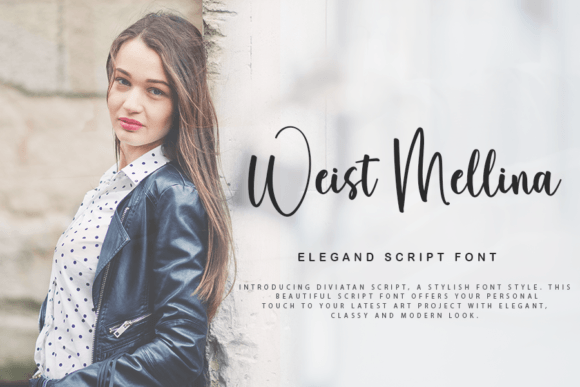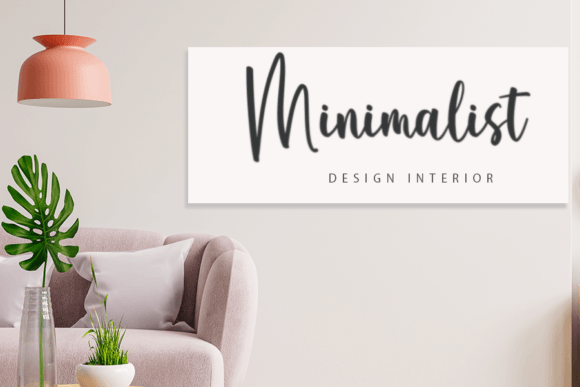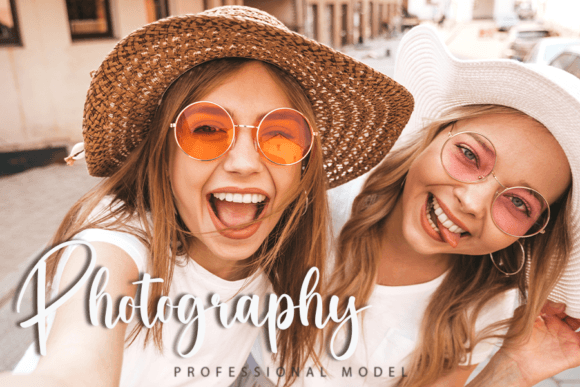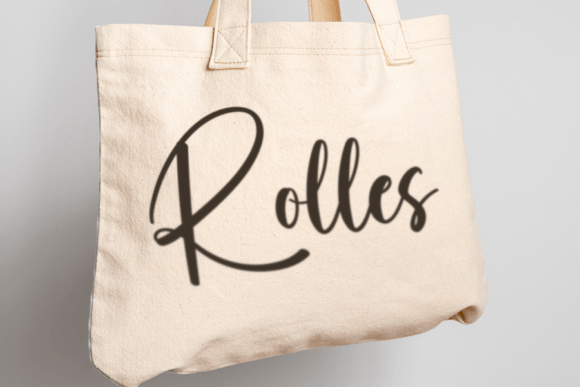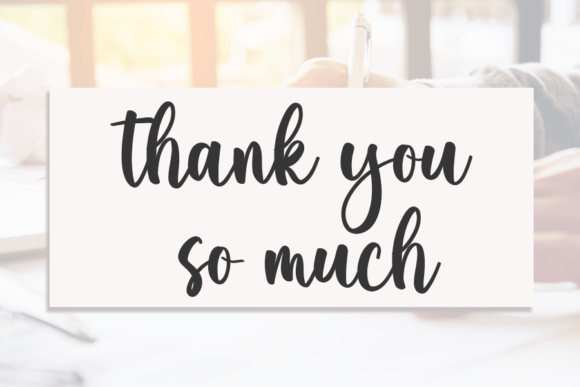
Introducing Anime Font: Elevate Your Designs with Timeless Elegance
Are you a designer or crafter looking for a font that exudes sophistication and style? Look no further than Anime Font, a stunning handwritten font that brings a touch of classic calligraphy to your modern designs. Inspired by the timeless elegance of traditional calligraphy, Anime Font is a beautifully balanced and varied typeface that is sure to elevate the beauty of your projects.
The Inspiration Behind Anime Font
Anime Font draws its inspiration from the world of classic calligraphy, where the art of beautiful handwriting is revered. The font’s creator aimed to capture the essence of this timeless art form and infuse it with a contemporary atmosphere, making it perfect for modern designs. The result is a font that is both elegant and approachable, with a unique character that sets it apart from more mundane typefaces.
Key Features of Anime Font
So, what makes Anime Font so special? Here are just a few of its key features:
• Handwritten with love: Anime Font is a carefully crafted handwritten font, with each letter and character lovingly designed to bring a touch of personality to your designs.
• Contemporary atmosphere: Despite its classic inspiration, Anime Font has a distinctly modern feel that makes it perfect for a wide range of design applications.
• Impeccable form: The font’s creator has paid meticulous attention to detail, ensuring that every letter and character is beautifully formed and balanced.
• Balanced and varied: Anime Font features a range of characters and ligatures, making it easy to create complex designs that are both visually appealing and easy to read.
Uses for Anime Font
So, what can you use Anime Font for? The possibilities are endless! Here are just a few ideas to get you started:
• Branding and logos: Anime Font’s unique character makes it perfect for creating eye-catching logos and brand identities.
• Invitations and events: Add a touch of elegance to your invitations, wedding stationery, and other event materials with Anime Font.
• Packaging and product design: Use Anime Font to add a personal touch to your product packaging and create a lasting impression on your customers.
• Digital and print media: Anime Font is perfect for use in digital and print media, including magazines, brochures, and website designs.
Why Choose Anime Font?
With so many fonts to choose from, why should you choose Anime Font? Here are just a few reasons:
• Unique and distinctive: Anime Font’s classic inspiration and modern twist make it a truly unique and distinctive typeface that will set your designs apart.
• Elegant and sophisticated: Anime Font exudes elegance and sophistication, making it perfect for designs that require a touch of refinement.
• Easy to use: Despite its complex and varied design, Anime Font is surprisingly easy to use, even for those with limited design experience.
Font Name Anime Font
Author Black line
In conclusion, Anime Font is a stunning handwritten font that brings a touch of timeless elegance to your modern designs. With its classic inspiration, contemporary atmosphere, and impeccable form, this font is sure to elevate the beauty of your projects and set you apart from the competition. Whether you’re a designer, crafter, or simply someone who appreciates beautiful typography, Anime Font is a must-have addition to your font collection.